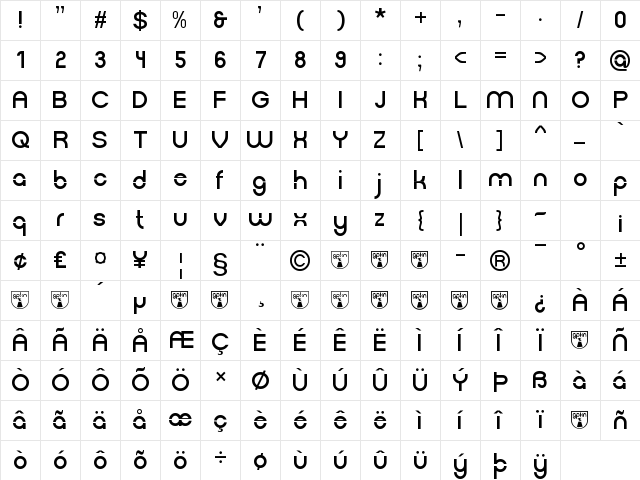
Complete gpkn Regular glyph index. Displaying only characters natively supported by gpkn Regular font.
gpkn is a composed and adaptable typeface that performs quietly and consistently across a wide range of design contexts.